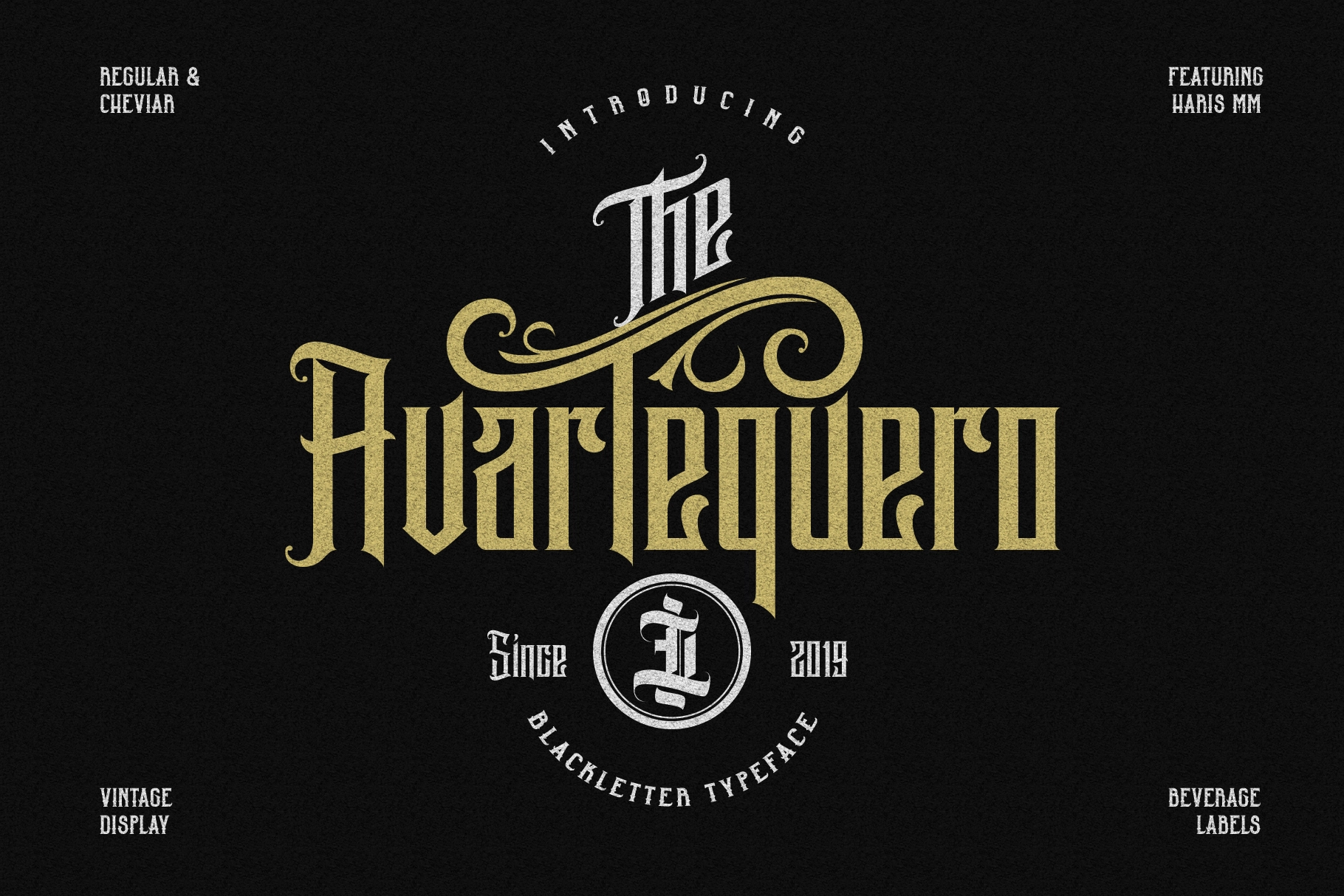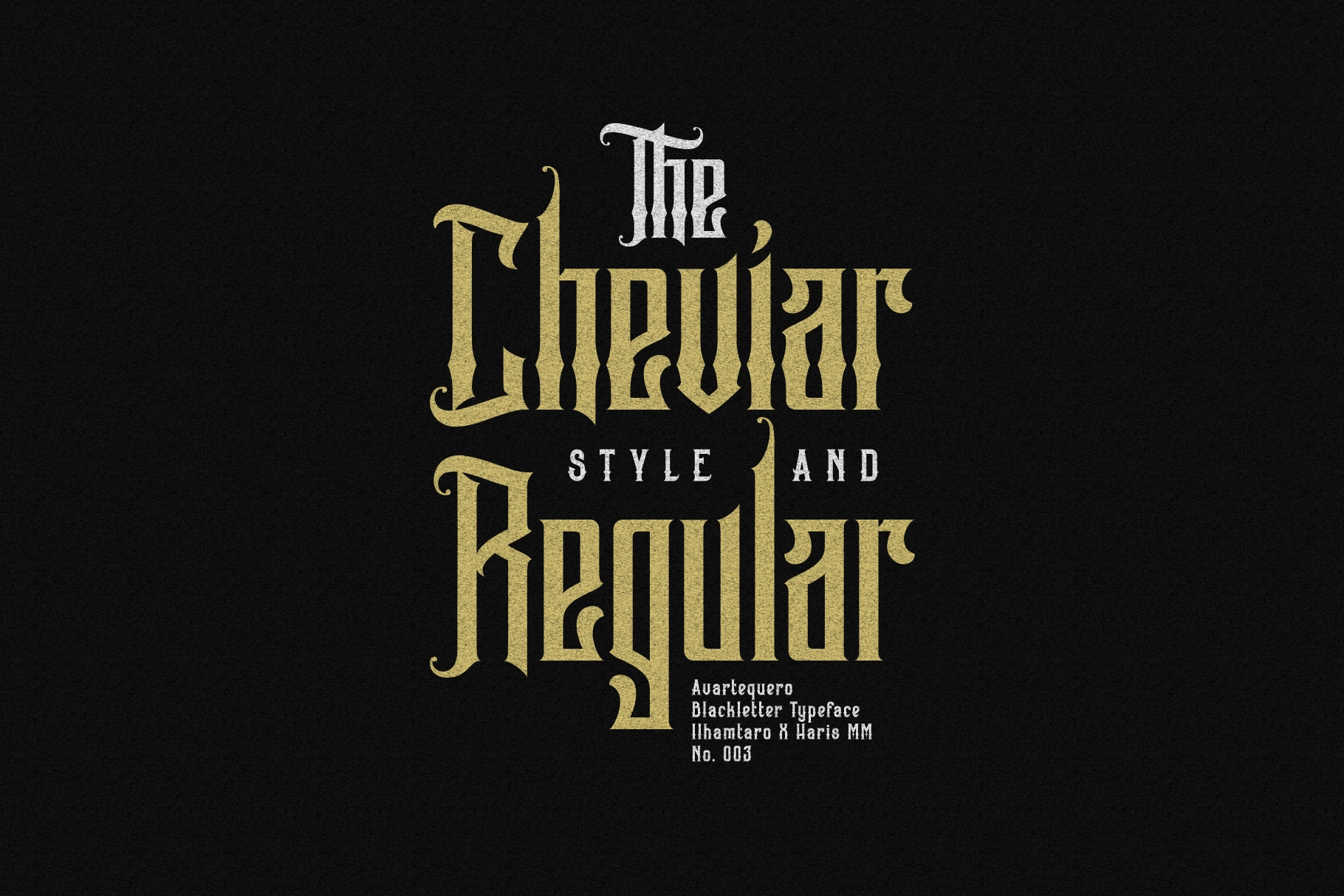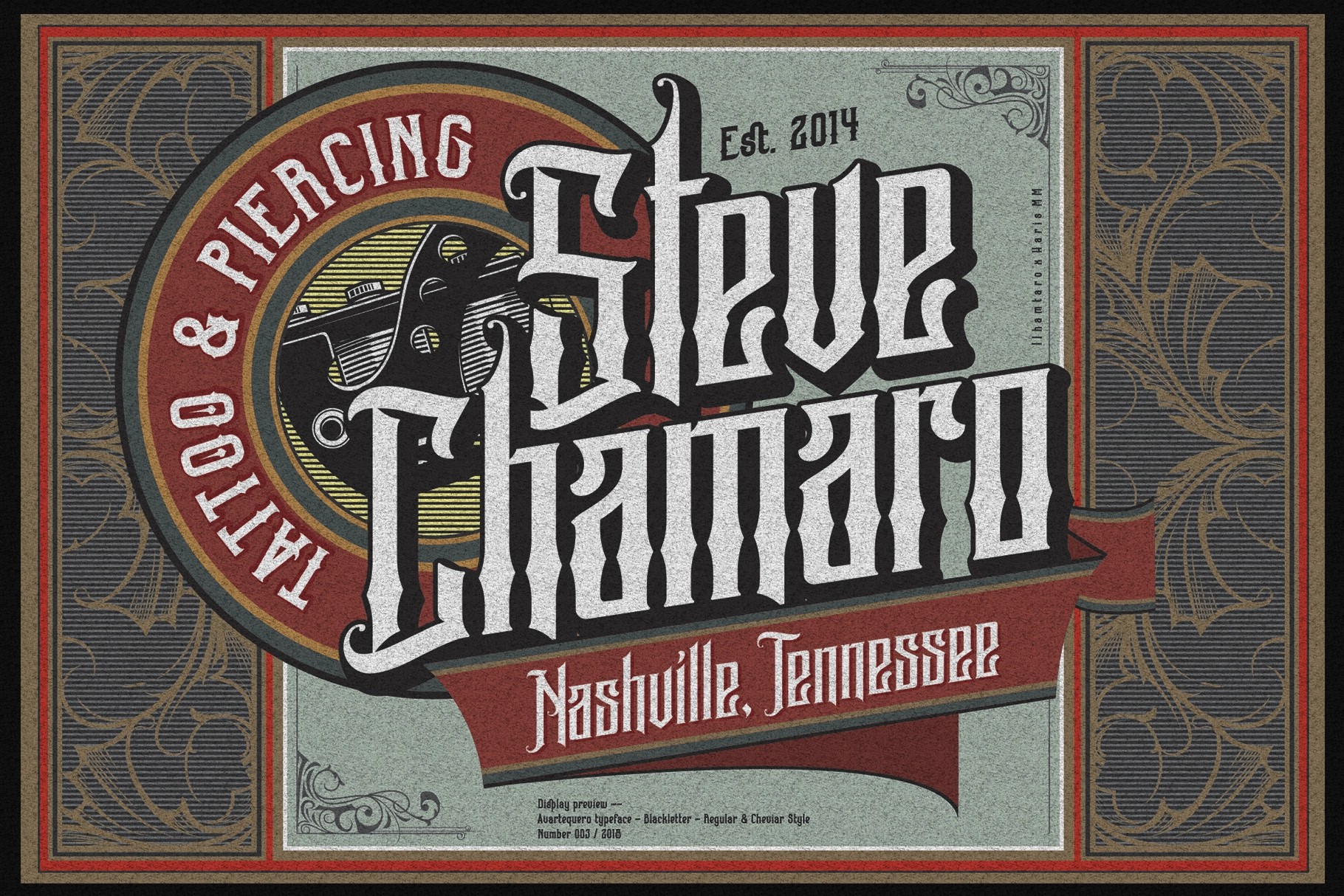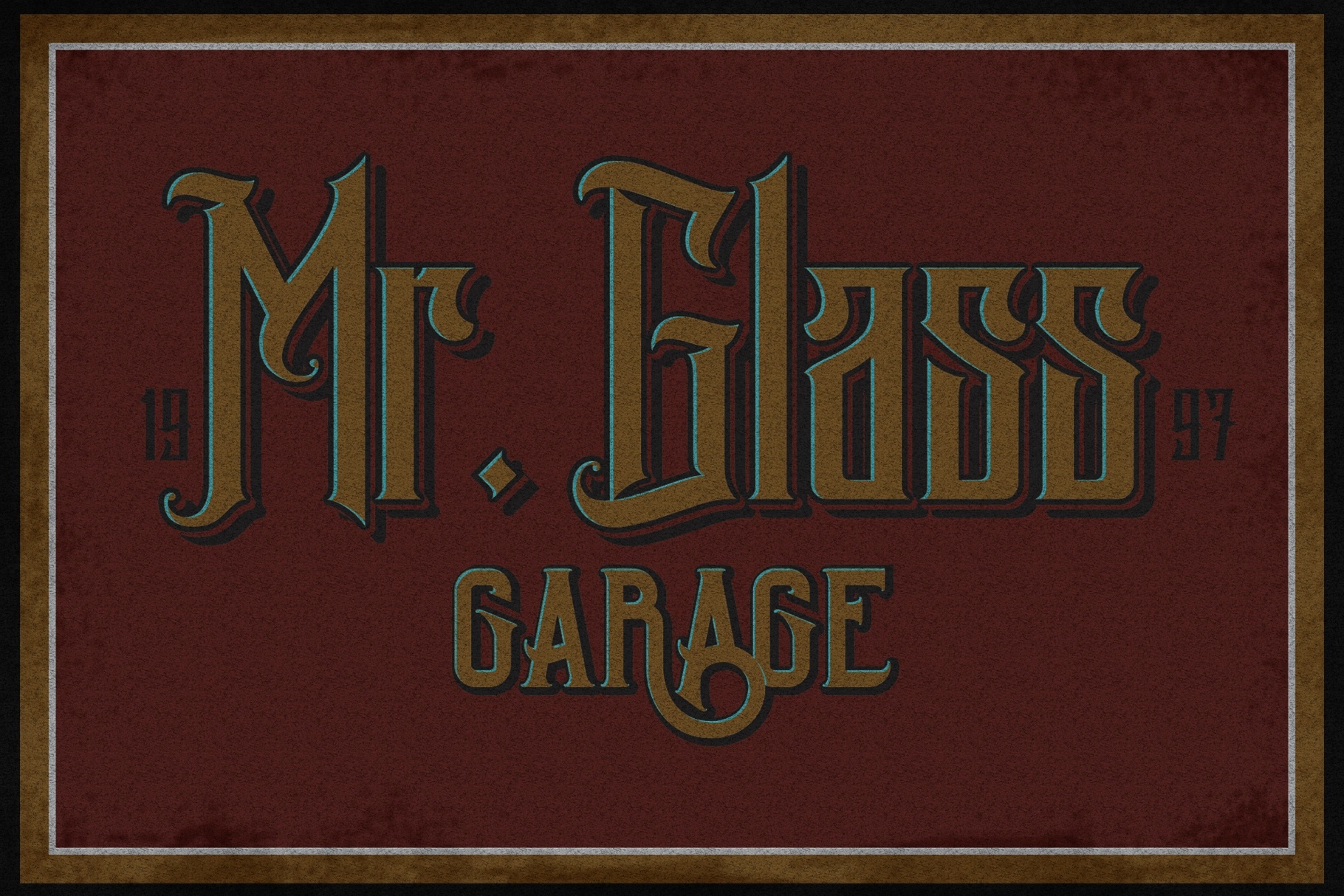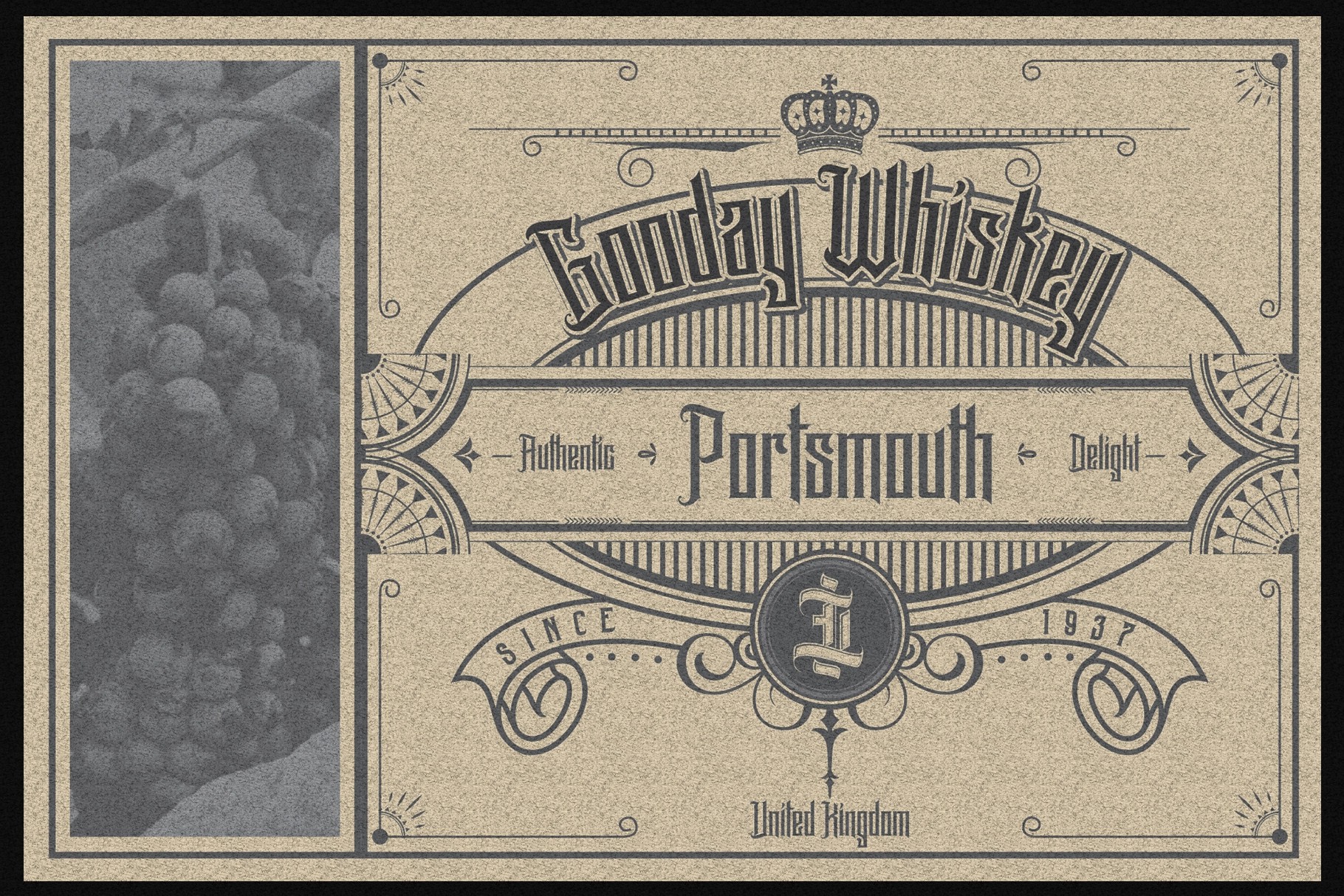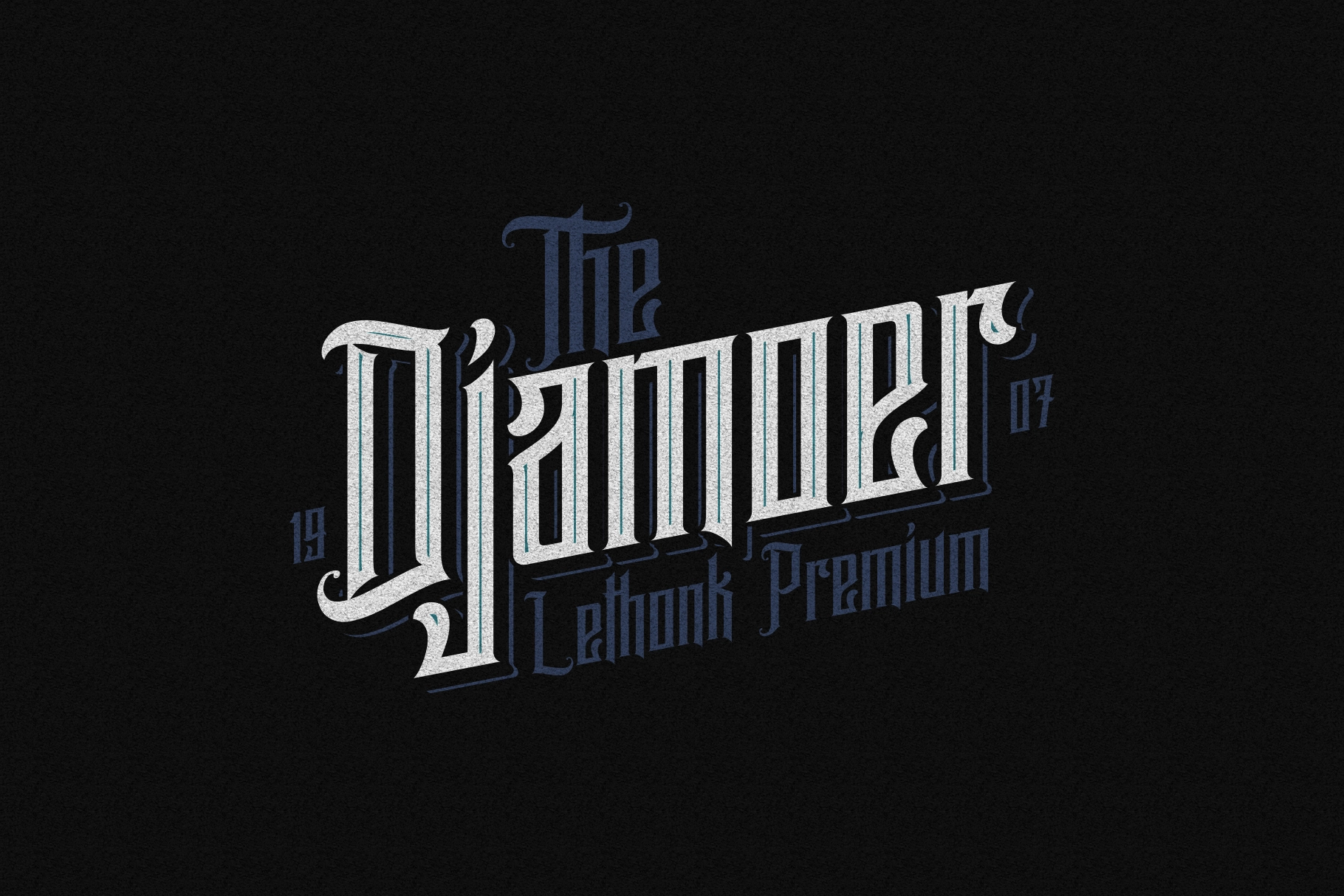
Avartequero - Bold Blackletter Display Font
A bold blackletter display font with sharp vertical stress, engraved detailing, and dramatic ornamental cuts. Its vintage character fits work that needs old-world authority, dark elegance, and a proper dose of label-design theater.
Avartequero is suited for beverage labels, tattoo logos, barbershop branding, music event posters, badge design, apparel graphics, motorcycle club artwork, brewery packaging, editorial titles, signage, album covers, and heritage-style identity systems. The Regular style is strong and formal, while Cheviar adds diamond-like interior fills for a richer decorative look.
• 2 styles: Regular, Cheviar
• Ligatures
• Discretionary ligatures
• Alternative characters